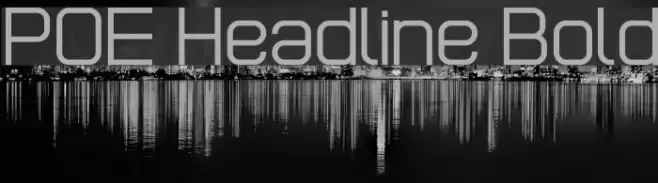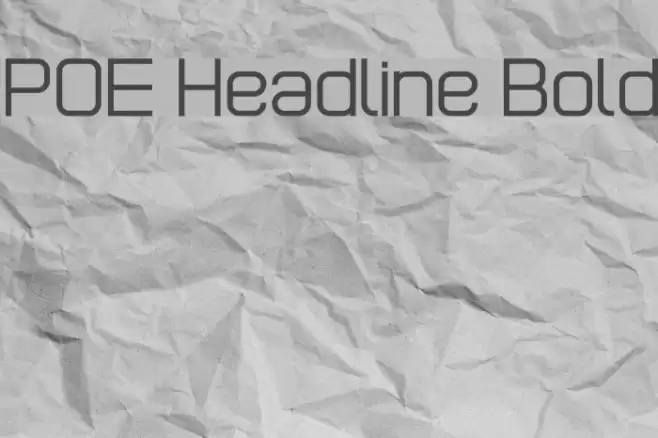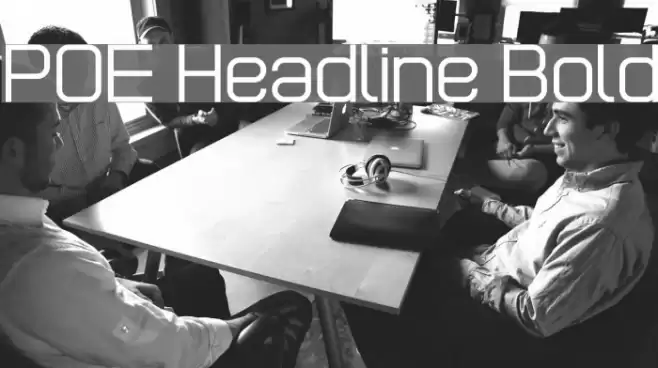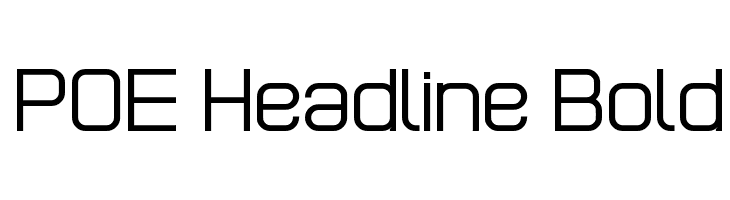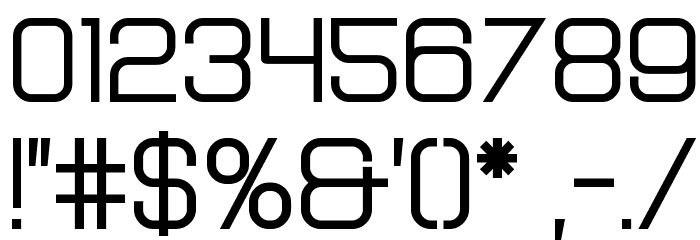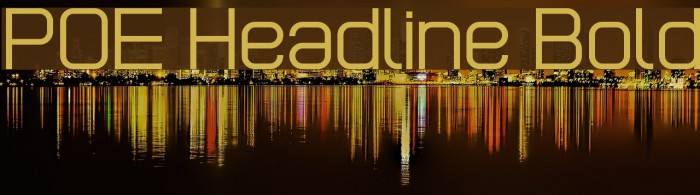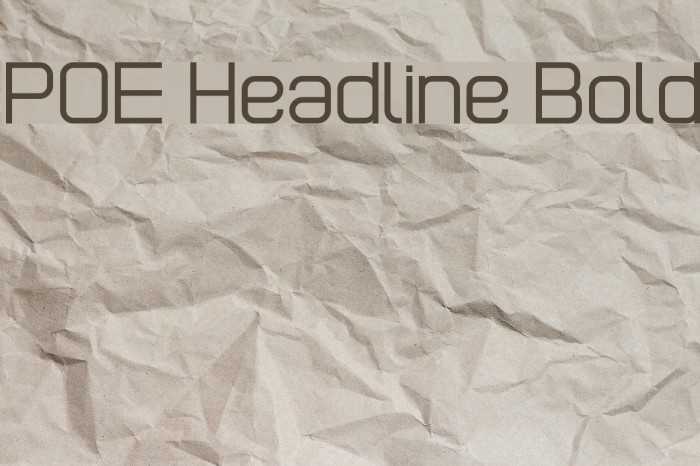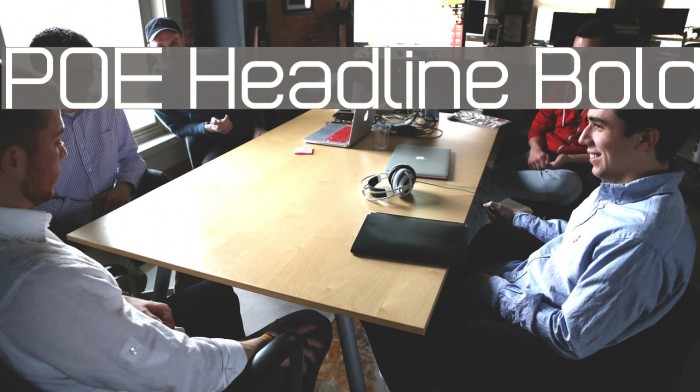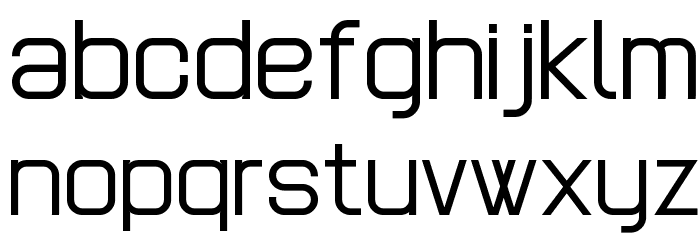
POE Headline Bold Font
POE Headline Bold Description
This font features a modern, geometric sans-serif style with clean, straight lines and a bold weight. The characters are uniform in width, giving it a monospaced appearance, although it is not strictly monospaced. The uppercase letters are tall and commanding, while the lowercase letters maintain a consistent height, contributing to its readability. The numerals are clear and distinct, matching the overall style of the alphabet. Special characters are well-integrated, maintaining the font's cohesive look. The design is minimalistic, making it suitable for contemporary projects.
A modern, bold, geometric sans-serif font with clean lines and uniform width from Uncategorized fonts.
- Proposed Projects: Ideal for headlines, posters, branding, and digital interfaces where a modern and bold statement is needed.